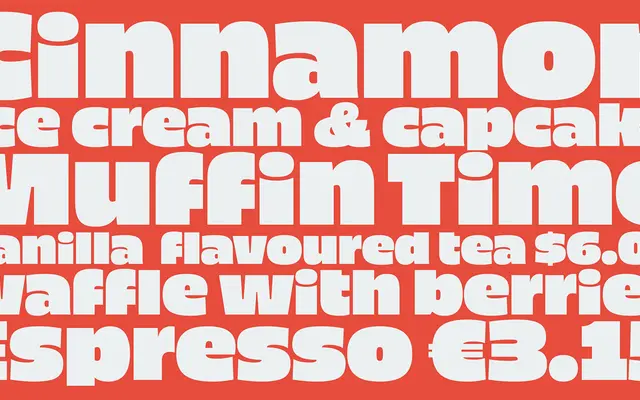
Piepie specimen from Dharma Type
An ultra-heavy display face with a large x-height and sharp detail, built for headlines and posters.
Piepie is a single-weight titling typeface with an outsized x-height, minimal ascenders and descenders, and crisp sharp terminals. Its 461-glyph set covers Latin Extended character sets up to Adobe Latin 3, and OpenType alternates are provided for K, R and Y. The weight and geometry make it most at home in poster work and large-scale display settings.
An ultra-heavy titling face with a large x-height and sharp details, designed exclusively for display and headline use, placing it firmly in the display category.